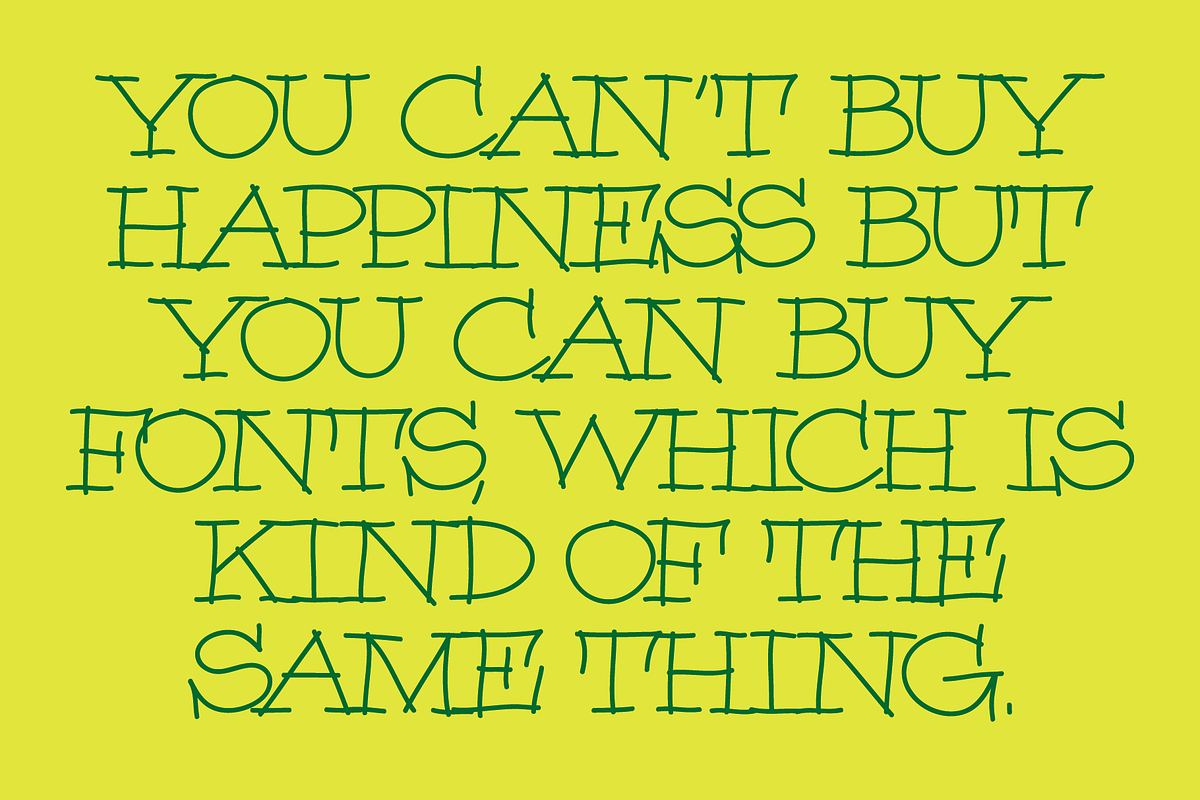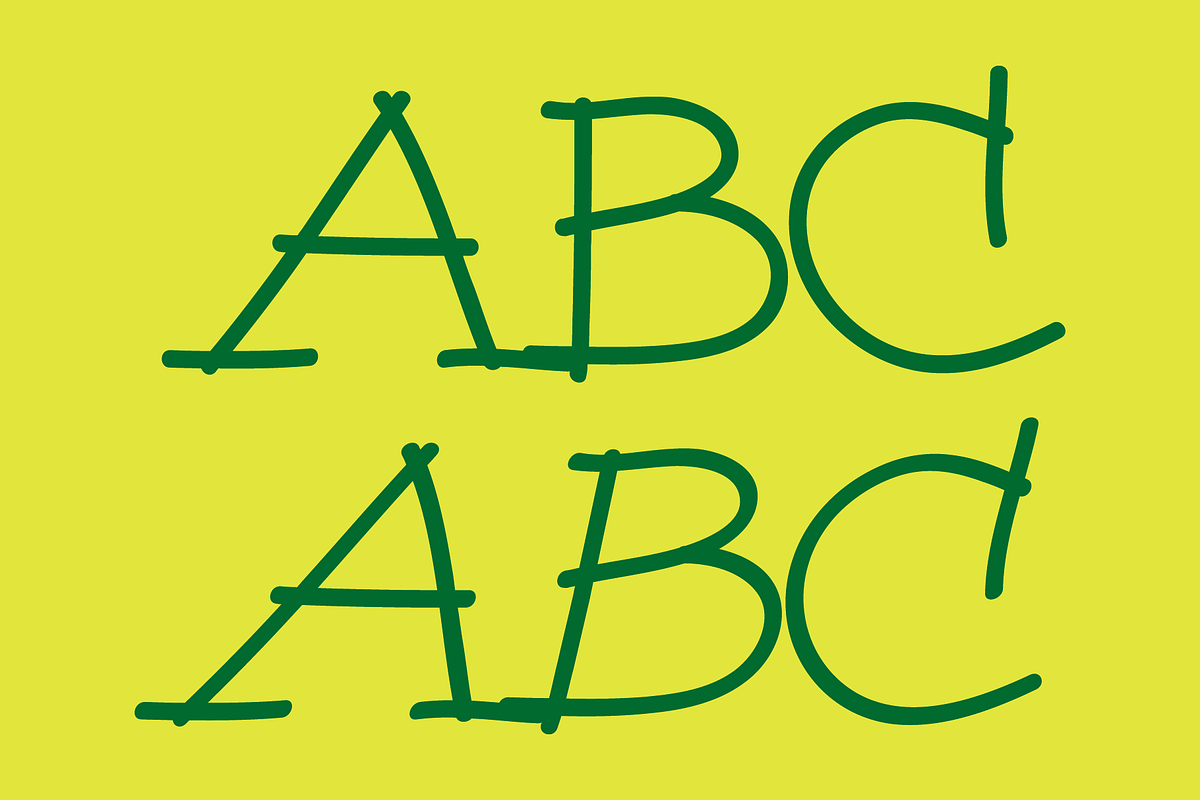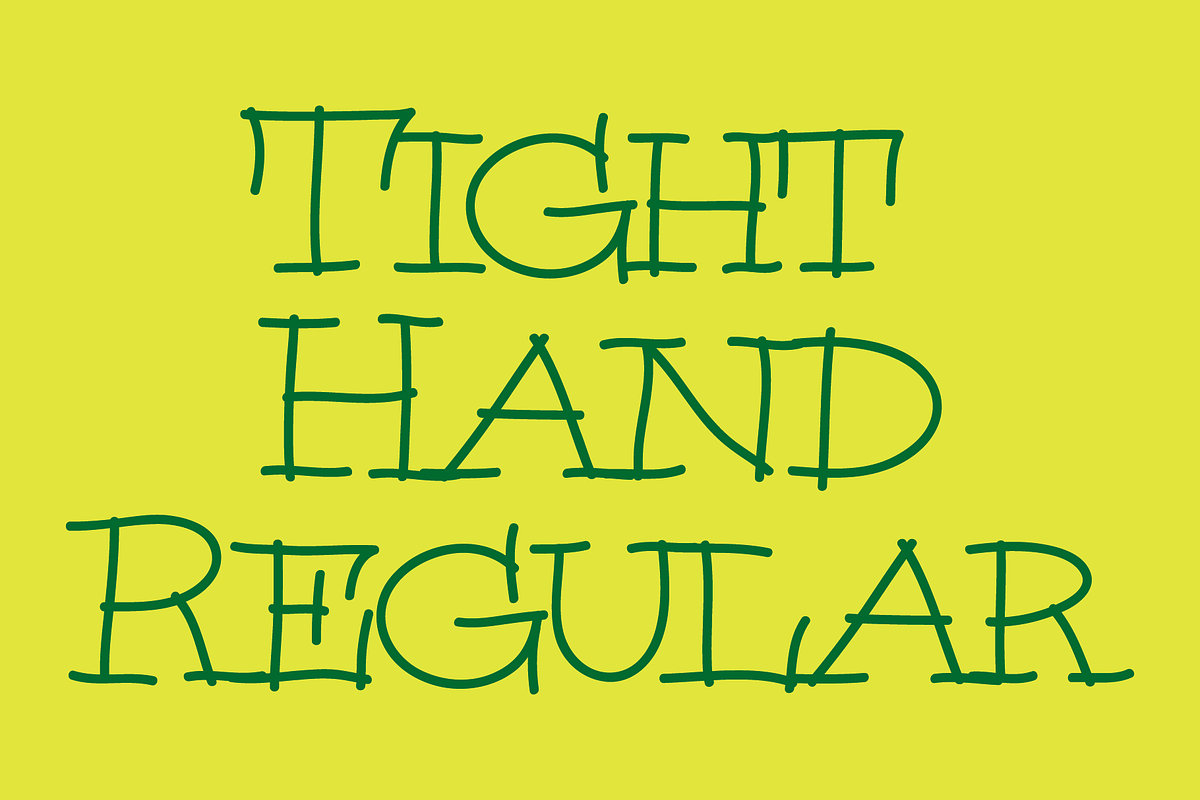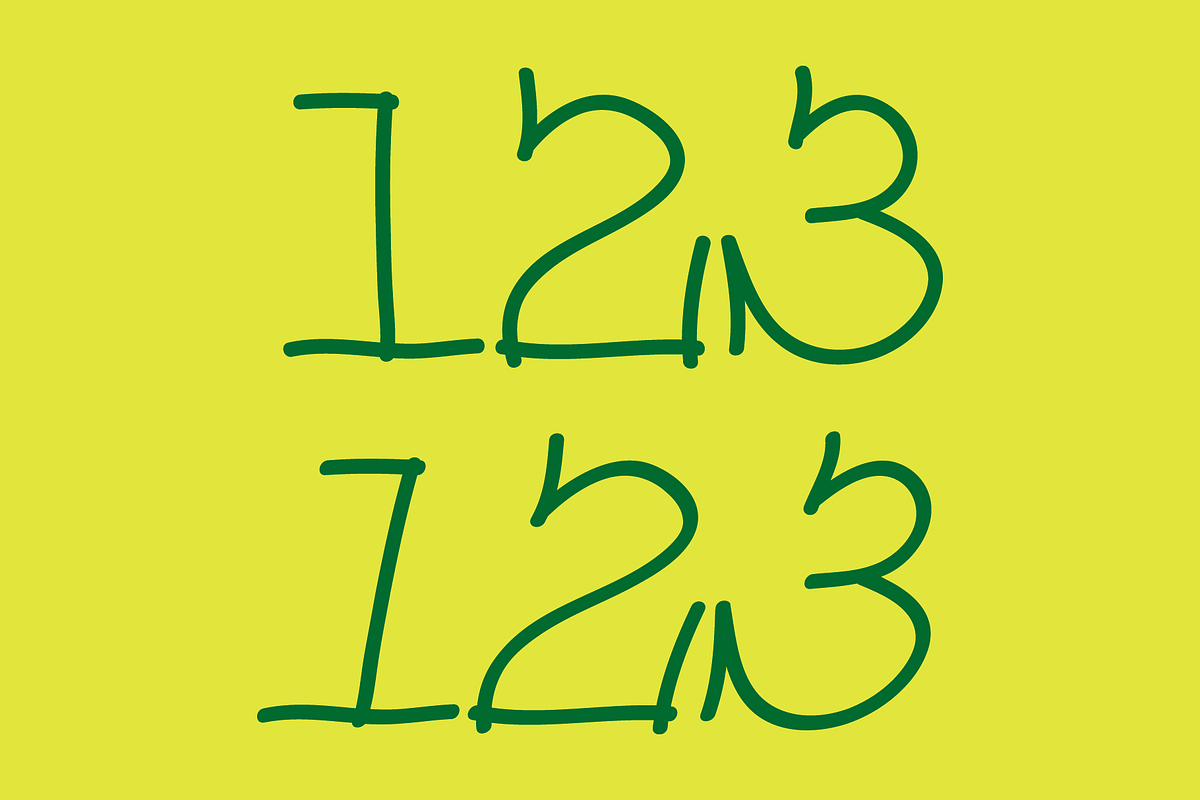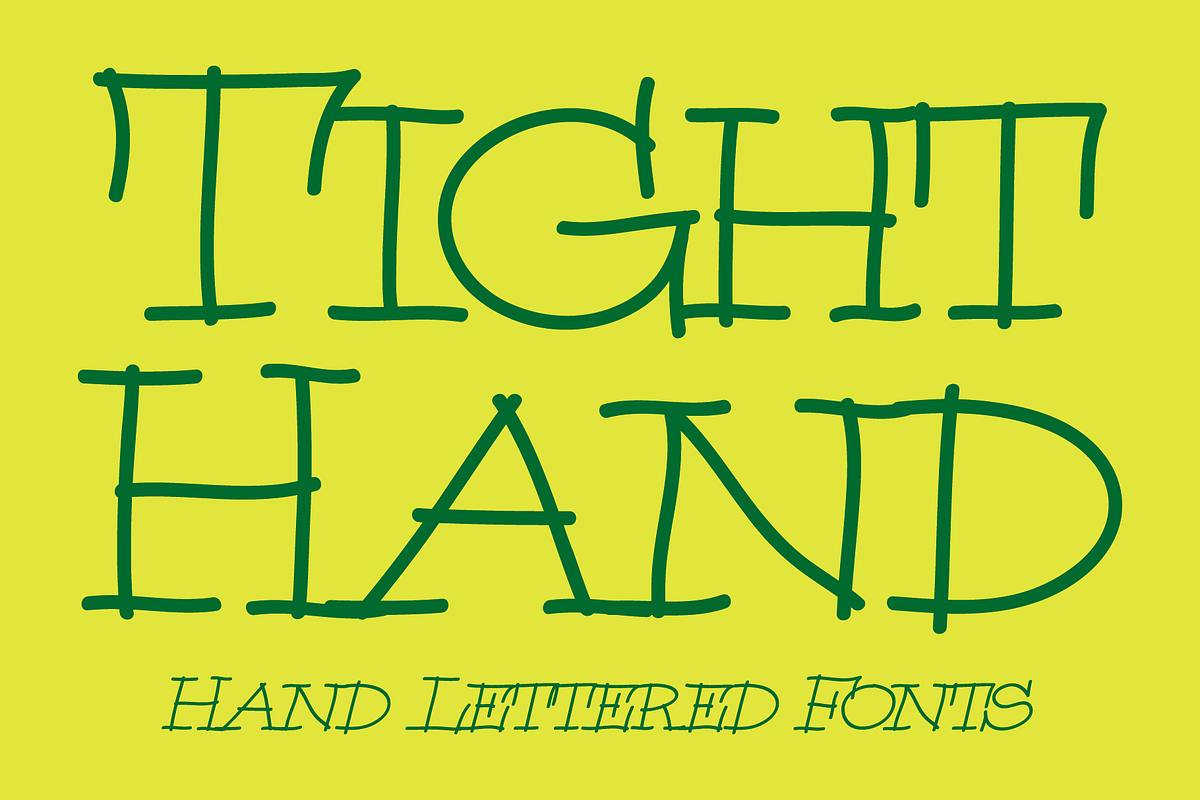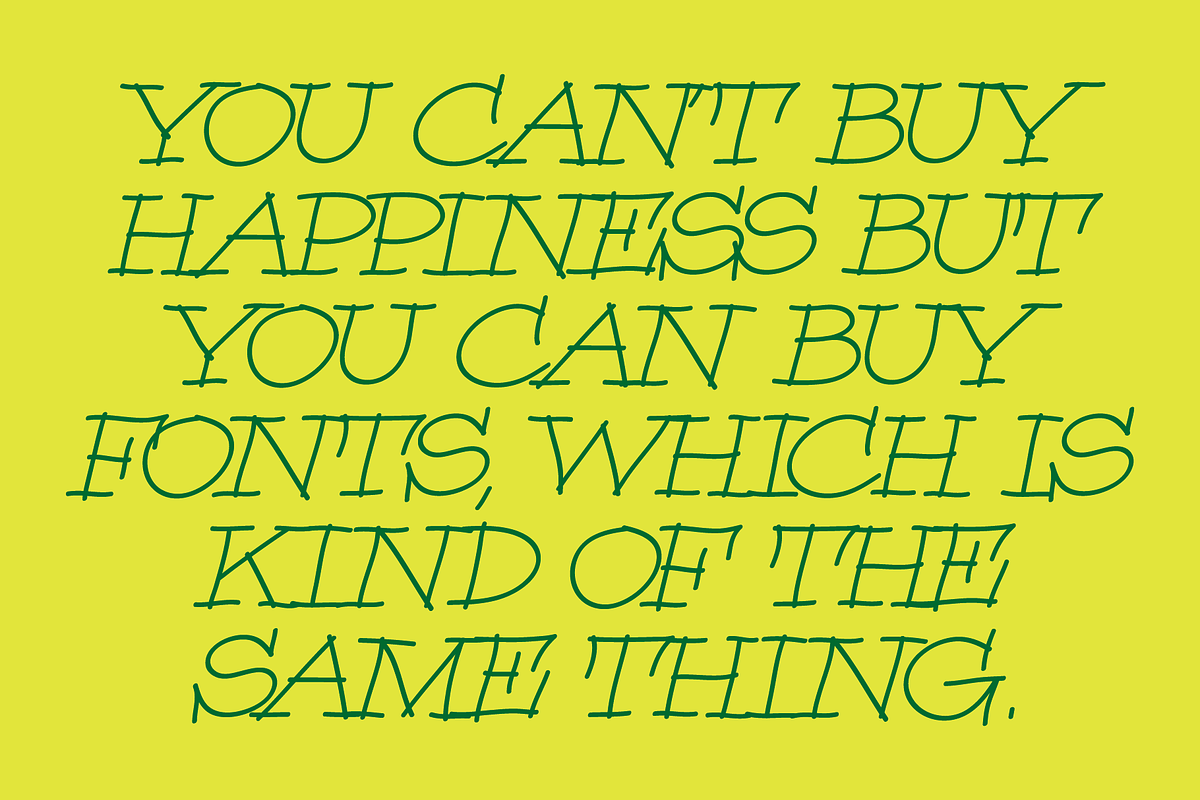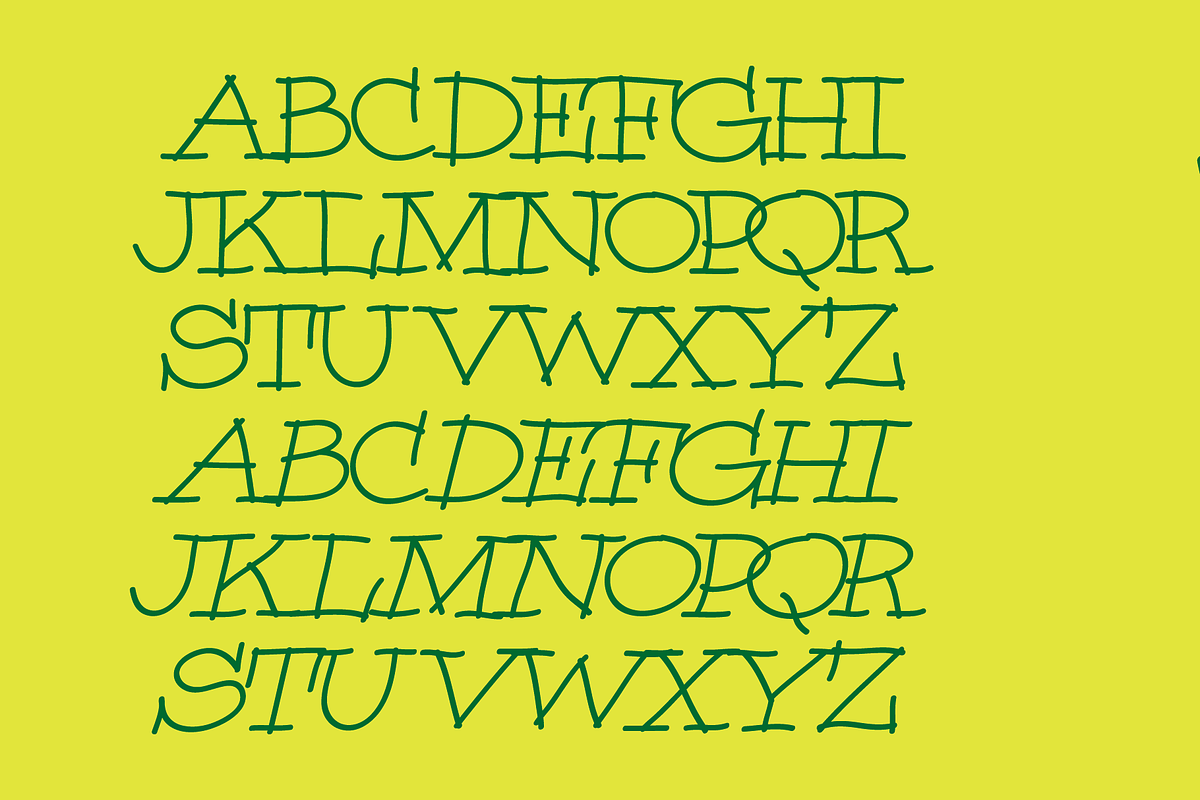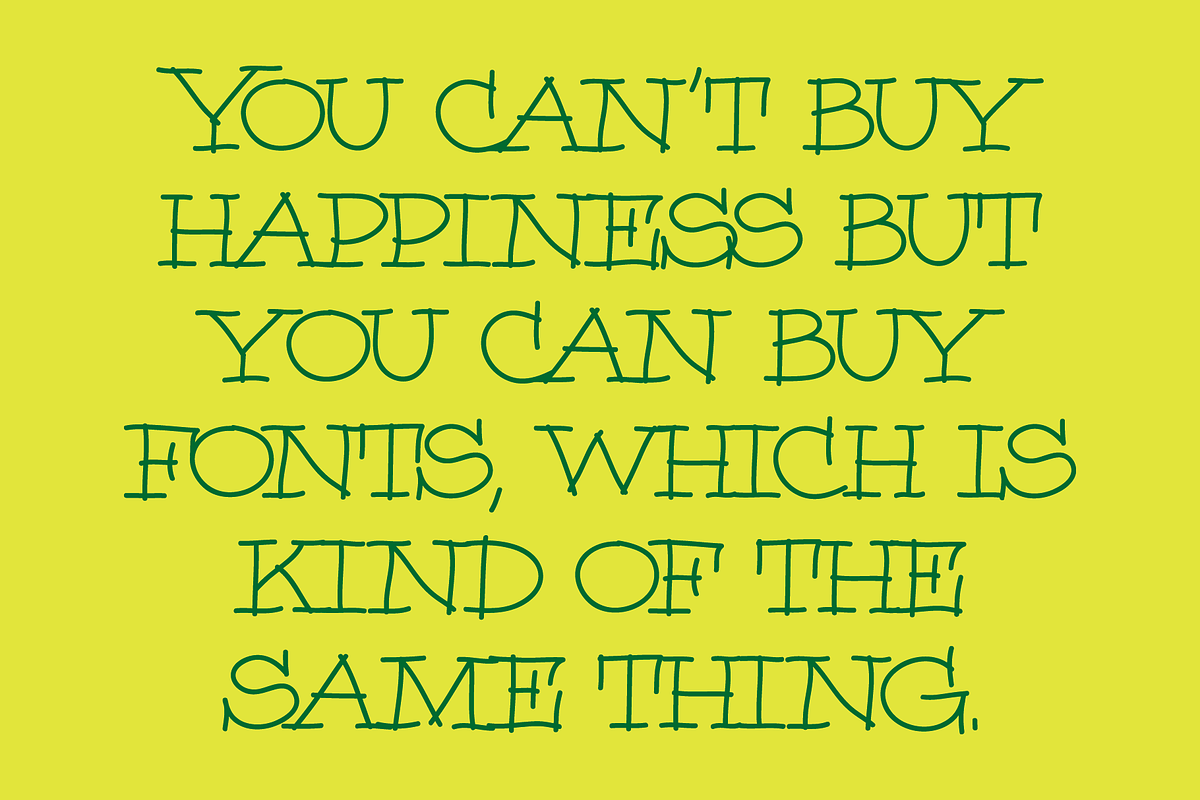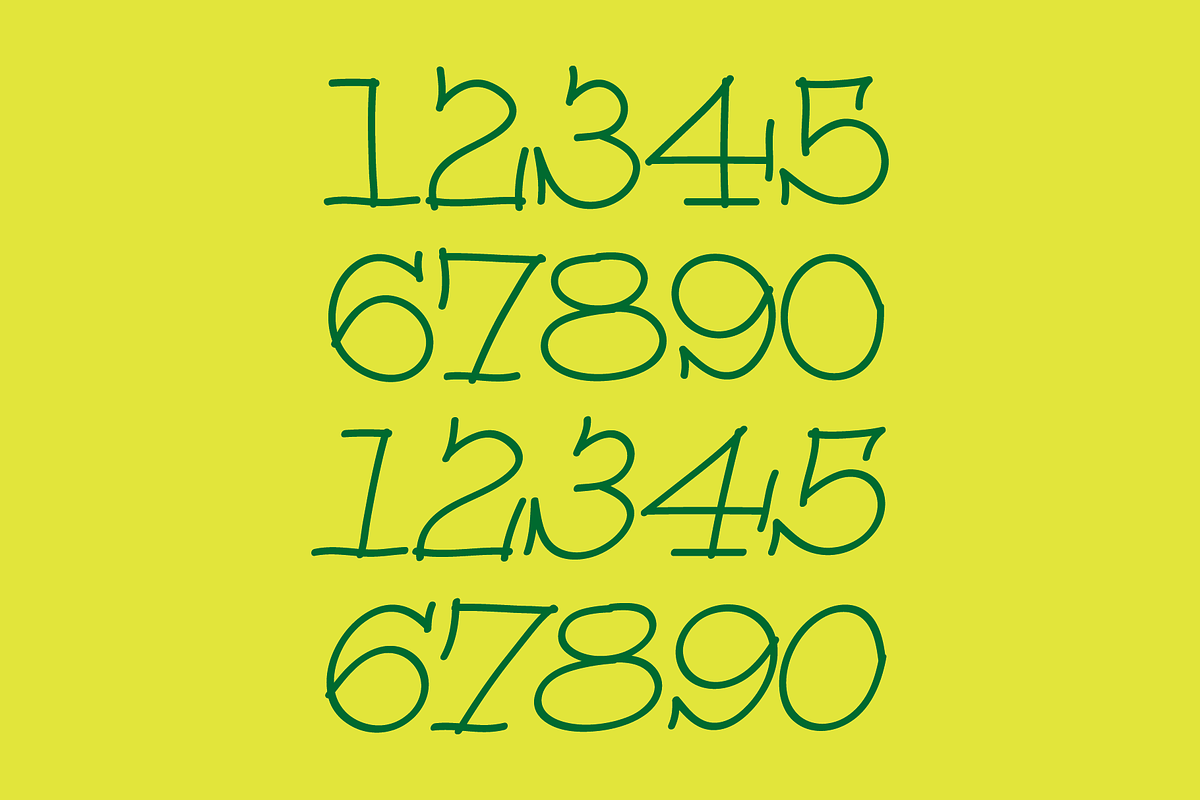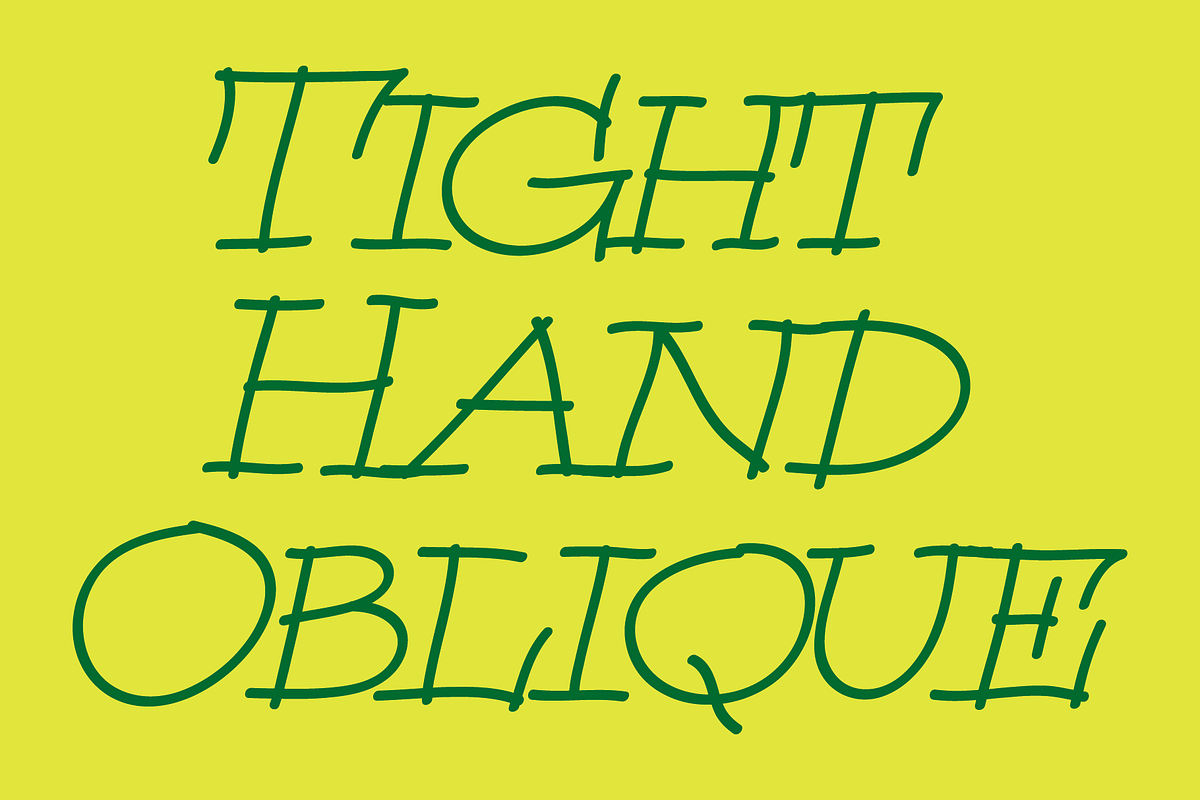
Tight Hand - Hand Lettered Font
Tight Hand is a hand-lettered serif font set. Tight Hand Regular is vertical while Tight Hand Oblique is the oblique version. Both fonts have the same uppercase and small caps alphabet, numbers, accented characters, punctuation, symbols, and miscellaneous characters. The Tight Hand fonts are ideal for use where a casual, loose feel is desirable.